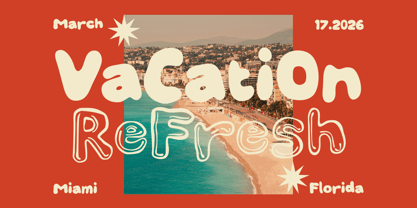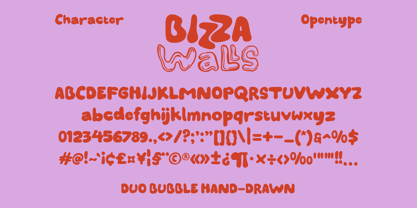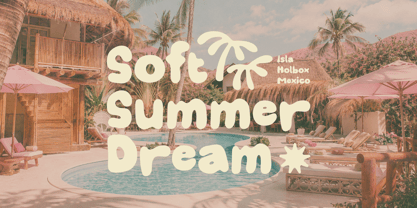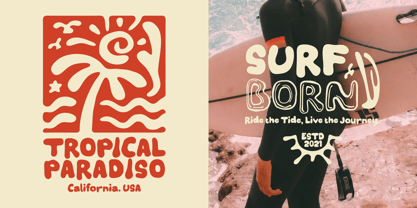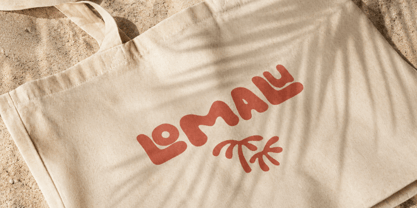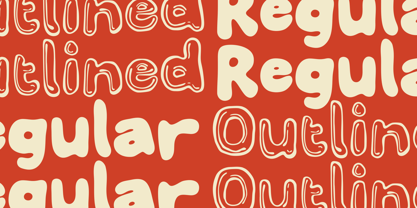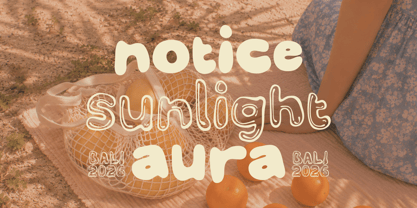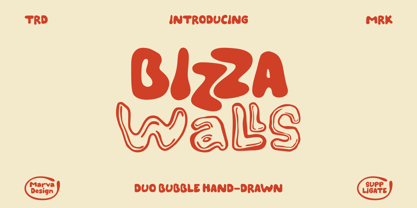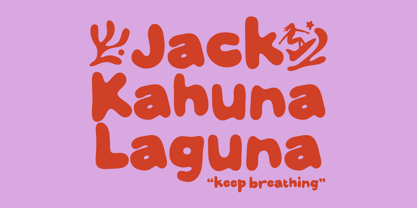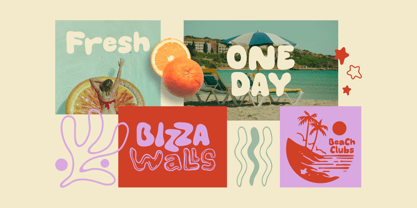
Bizza Walls
The Bizza Walls Font Family was designed by Febrie Setiawan and published by Marvadesign. Bizza Walls contains 2 styles and family package options. More about this family
Bizza Walls is a playful duo bubble hand-drawn typeface that combines bold rounded letterforms with an organic handmade aesthetic. Available in both Solid and Outline styles, the font features soft curves, inflated shapes, and intentionally irregular details that create a cheerful, friendly, and highly expressive personality. Its bold appearance ensures strong visibility while maintaining a warm and approachable feel.
Inspired by surf culture, tropical destinations, retro summer graphics, and vintage handmade signage, Bizza Walls is perfect for branding, packaging, posters, social media content, and lifestyle projects.